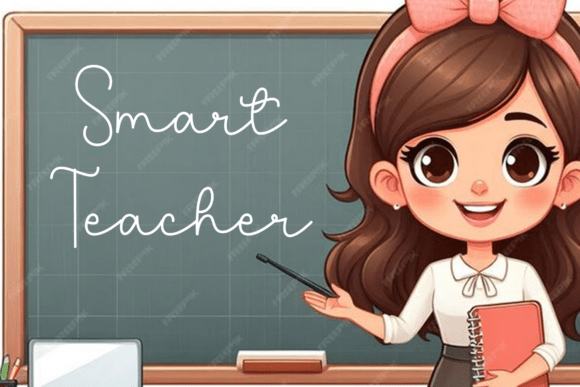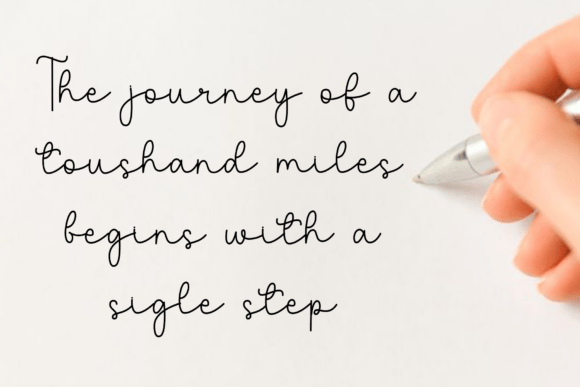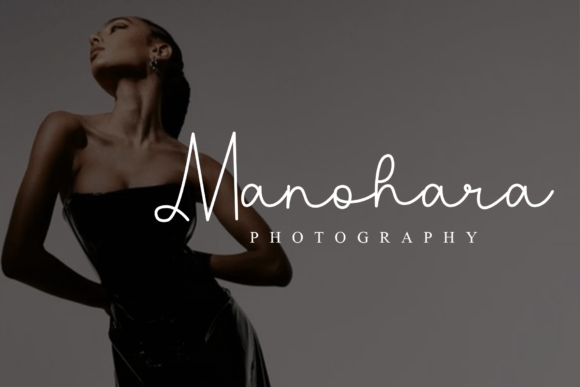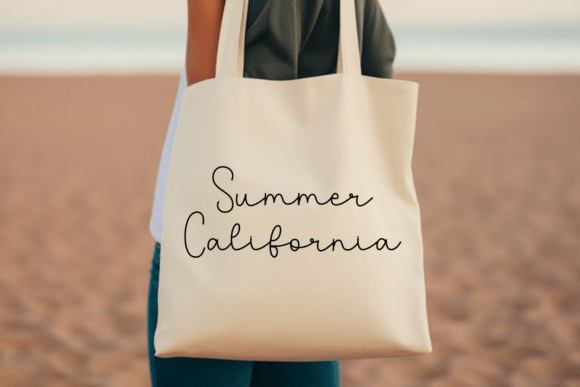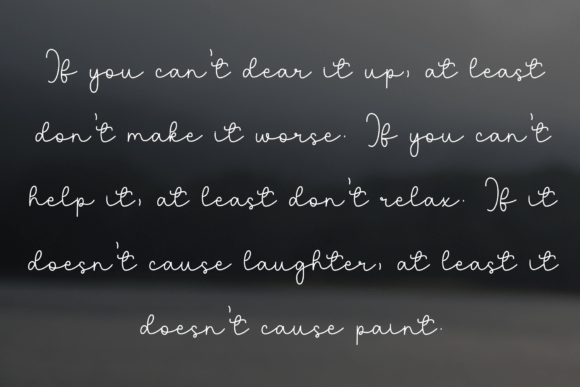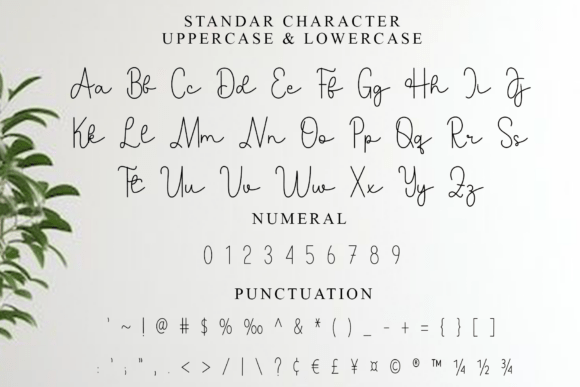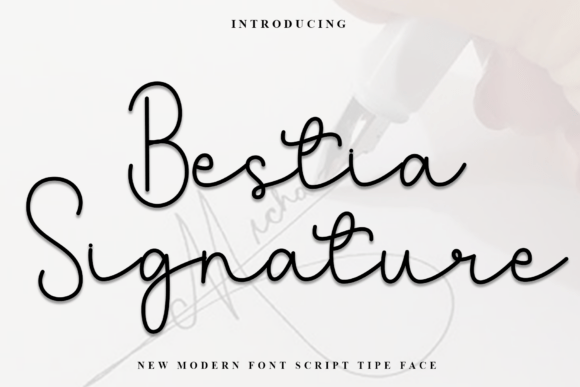
The Perfect Blend of Whimsy and Warmth: Bestia Signature Font
Have you ever stared at a blank canvas, searching for the perfect font to bring your creative vision to life? The blank page stares back, taunting you with its emptiness. But what if I told you there’s a font that can turn that blank space into a warm and inviting haven? Enter Bestia Signature Font, a charming and playful typeface that’s sure to make your designs shine.
Bestia Signature Font is more than just a font – it’s a key to unlocking the perfect blend of whimsy and warmth in your designs. With its round, hand-drawn strokes and relaxed feel, this font is perfect for personal projects, invitations, and social media graphics. Whether you’re a seasoned designer or a creative enthusiast, the Bestia Signature Font is an invaluable tool that will help you stand out in a crowded digital landscape.
Bestia Signature Font Key Features
- Font Style: Script Font with a unique, handwritten feel.
- Unique Characteristics: The Bestia Signature Font features a dynamic, expressive design with varying line widths and subtle flourishes, perfect for creating elegant and sophisticated designs.
Review of Bestia Signature Font
Overall, I think Bestia Signature Font is a decent addition to any designer’s toolkit. Here are some of its standout features:
- ✨ Elegant and sophisticated design that’s perfect for high-end branding
- ✨ Great for use in headers and titles due to its dramatic flair
- ✨ Supports both Latin and Cyrillic character sets, making it a great option for international brands
- ⚠️ The font can be quite dense, which may make it difficult to read at smaller sizes
- ⚠️ Limited language support beyond Latin and Cyrillic, which may be a concern for designers working with non-Latin scripts
- ⚠️ May not be suitable for body text due to its ornate design, which can be overwhelming for long blocks of text
In conclusion, Bestia Signature Font is a solid choice for designers who need a high-end font for headers and titles. While it may not be the best option for body text or languages beyond Latin and Cyrillic, it’s definitely worth considering for the right project.
Use the Bestia Signature Font in conjunction with other design elements to create a unique and cohesive look.
Experiment with different font sizes, styles, and colors to add depth and visual interest.
Consider pairing the font with a complementary font for body text to create contrast.
Use the Bestia Signature Font for:
Social media graphics and posts
Presentations and slides
Document titles and headings
Business cards and stationery